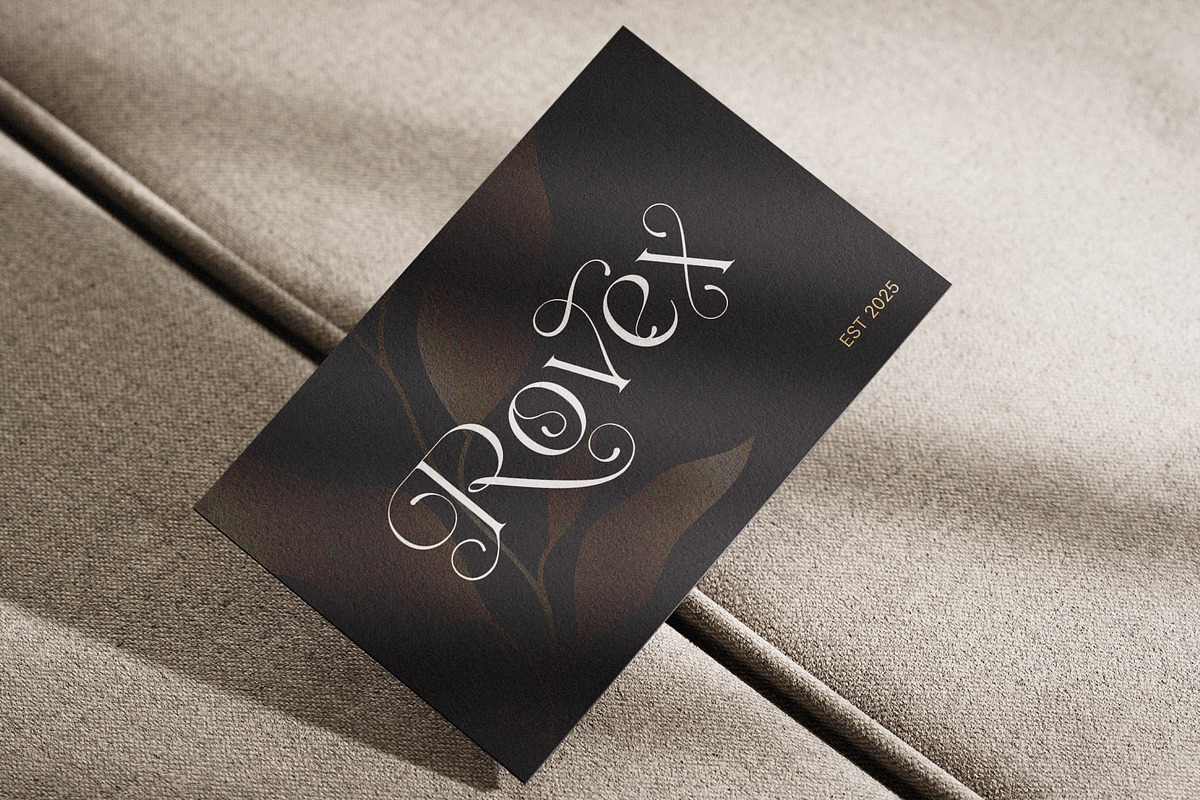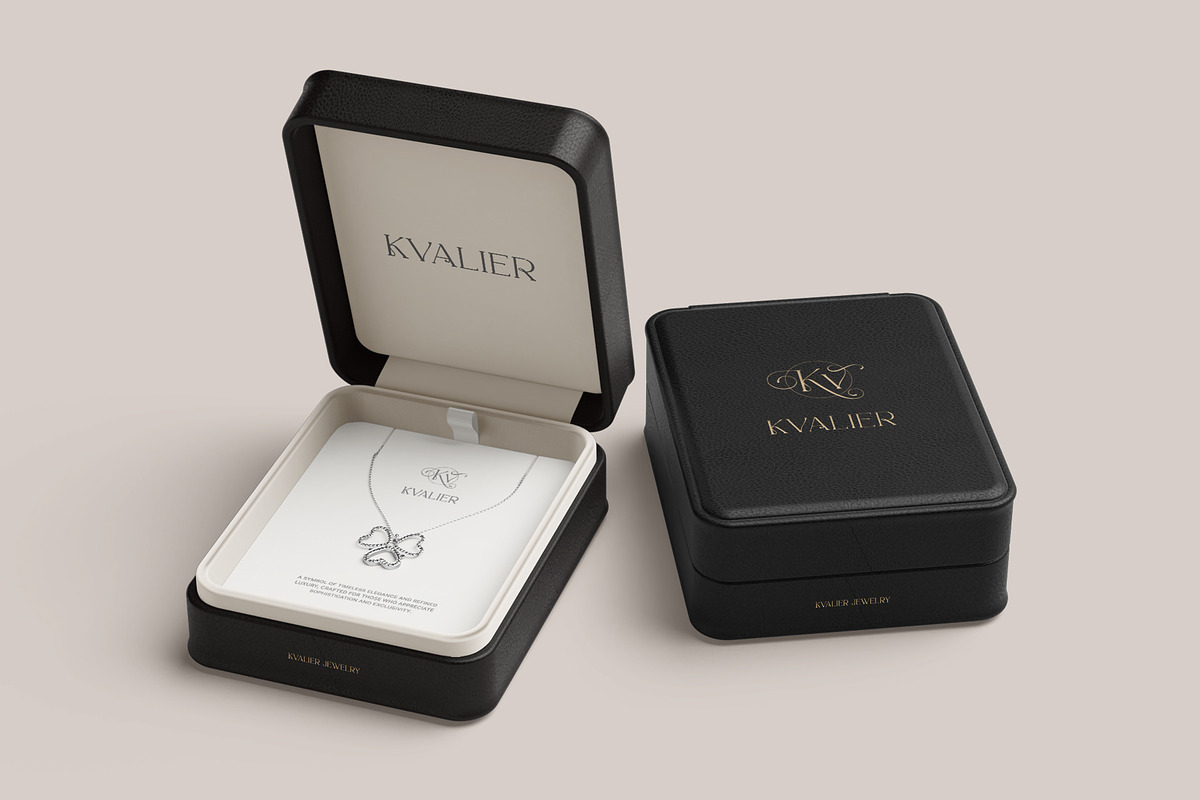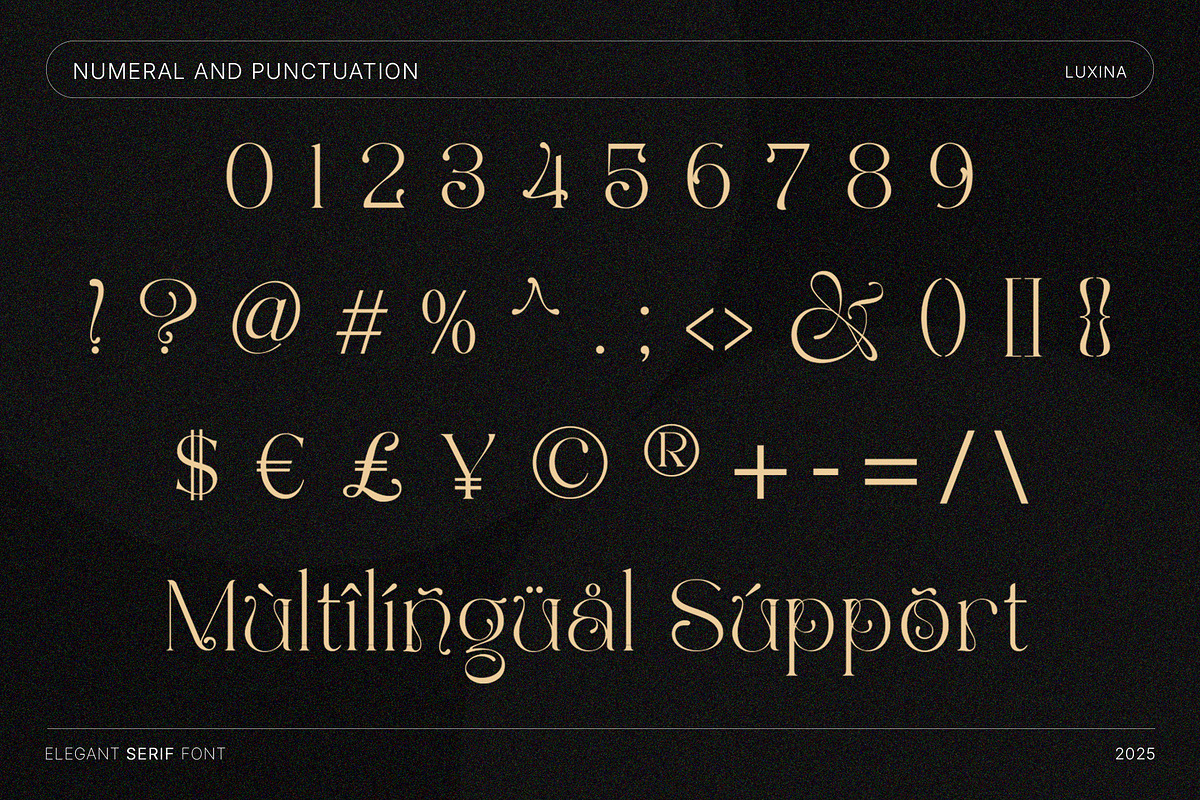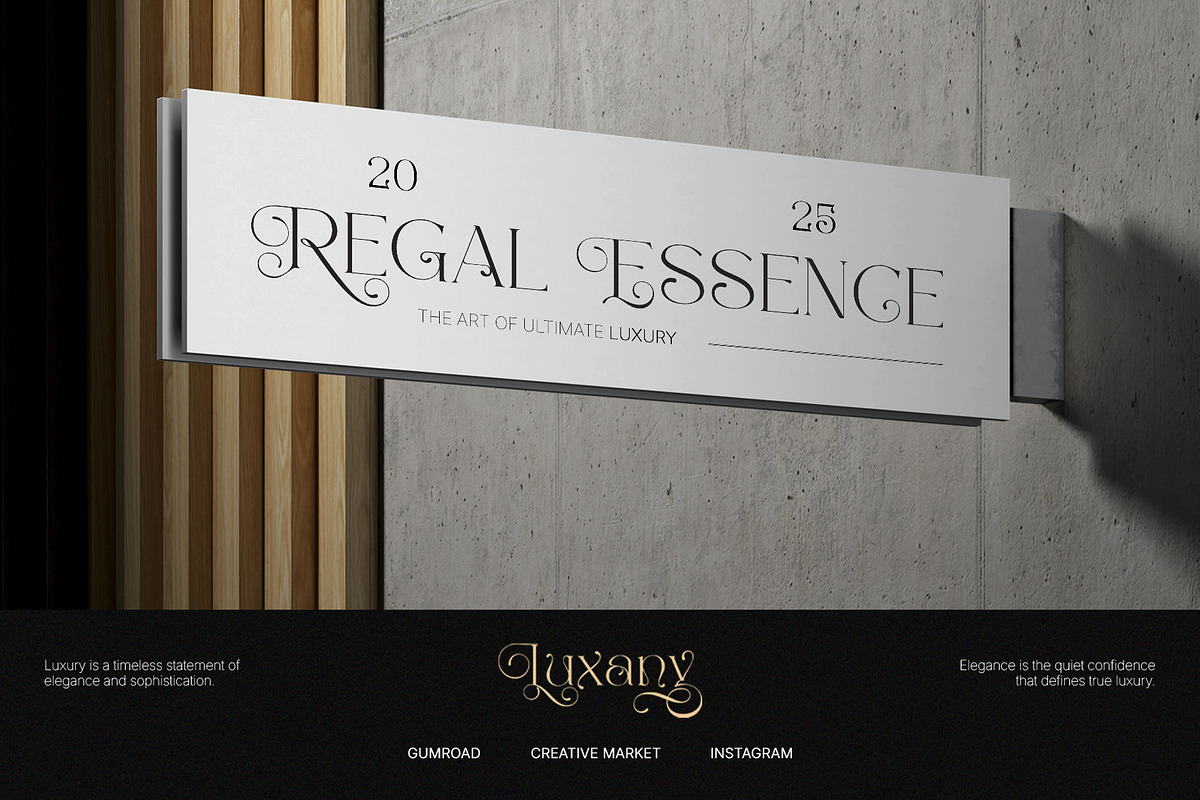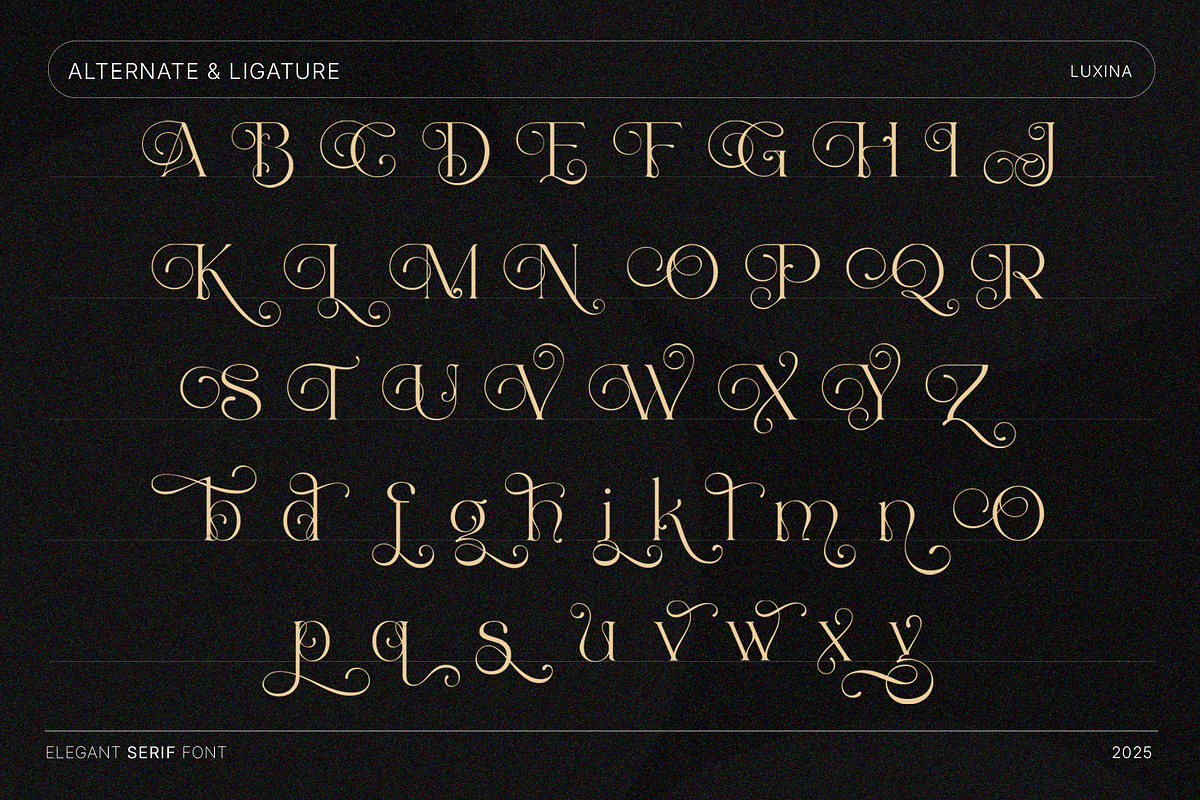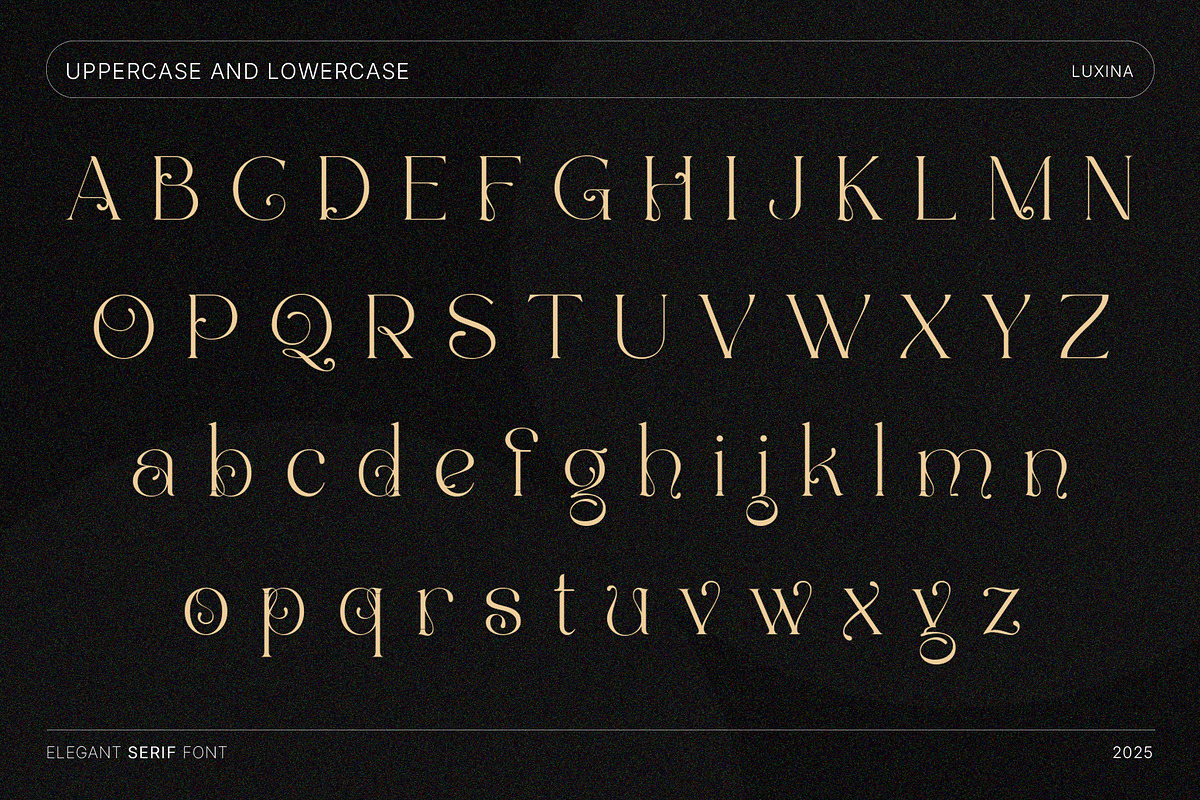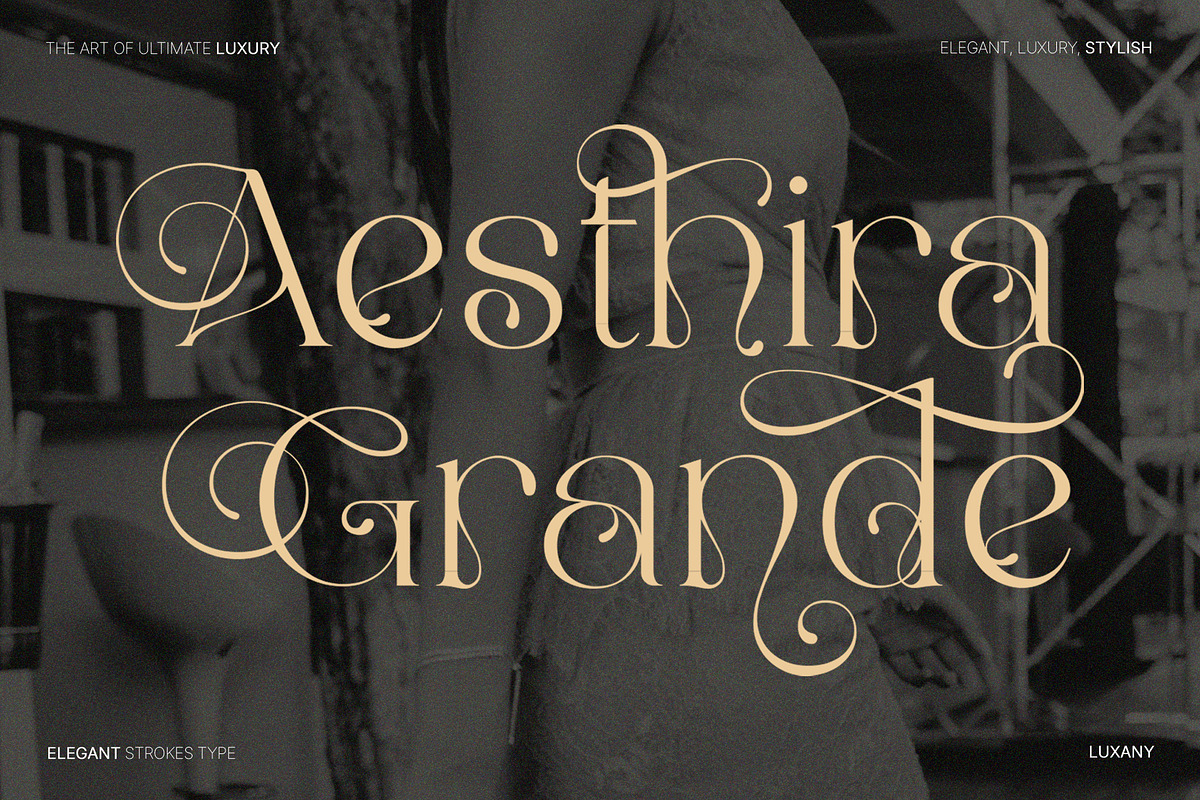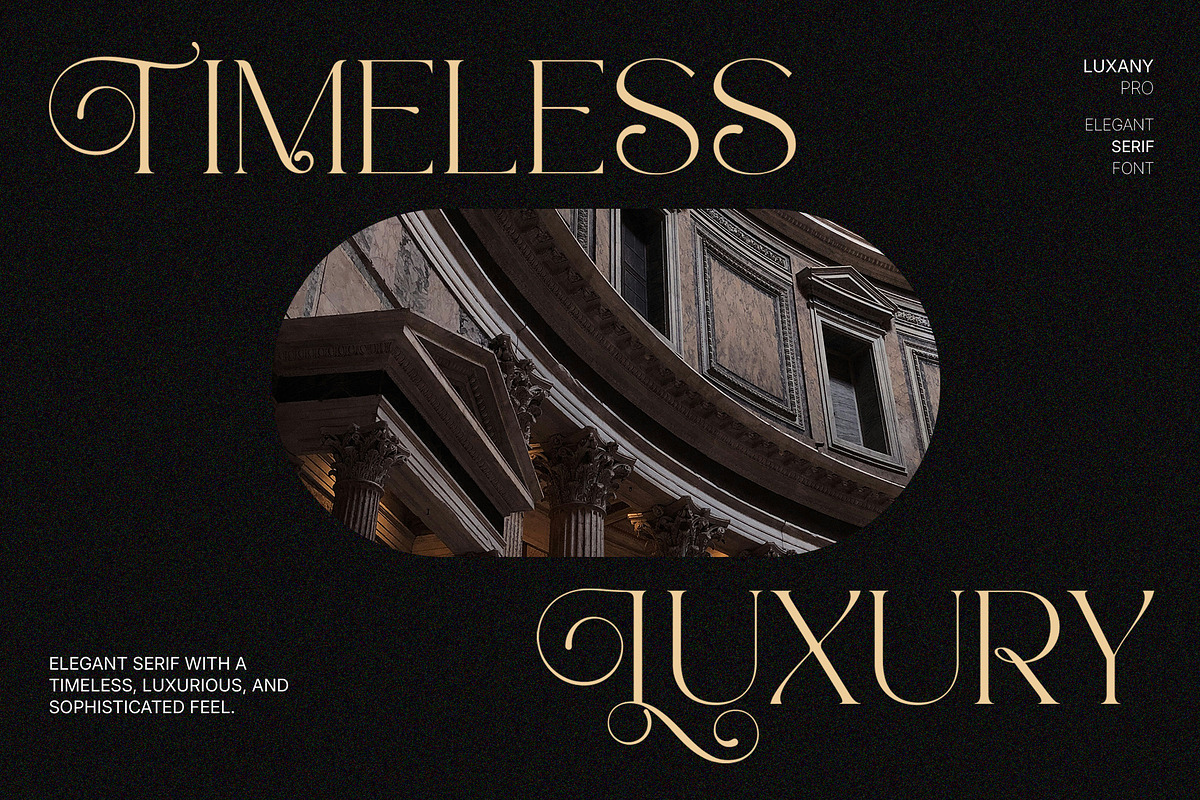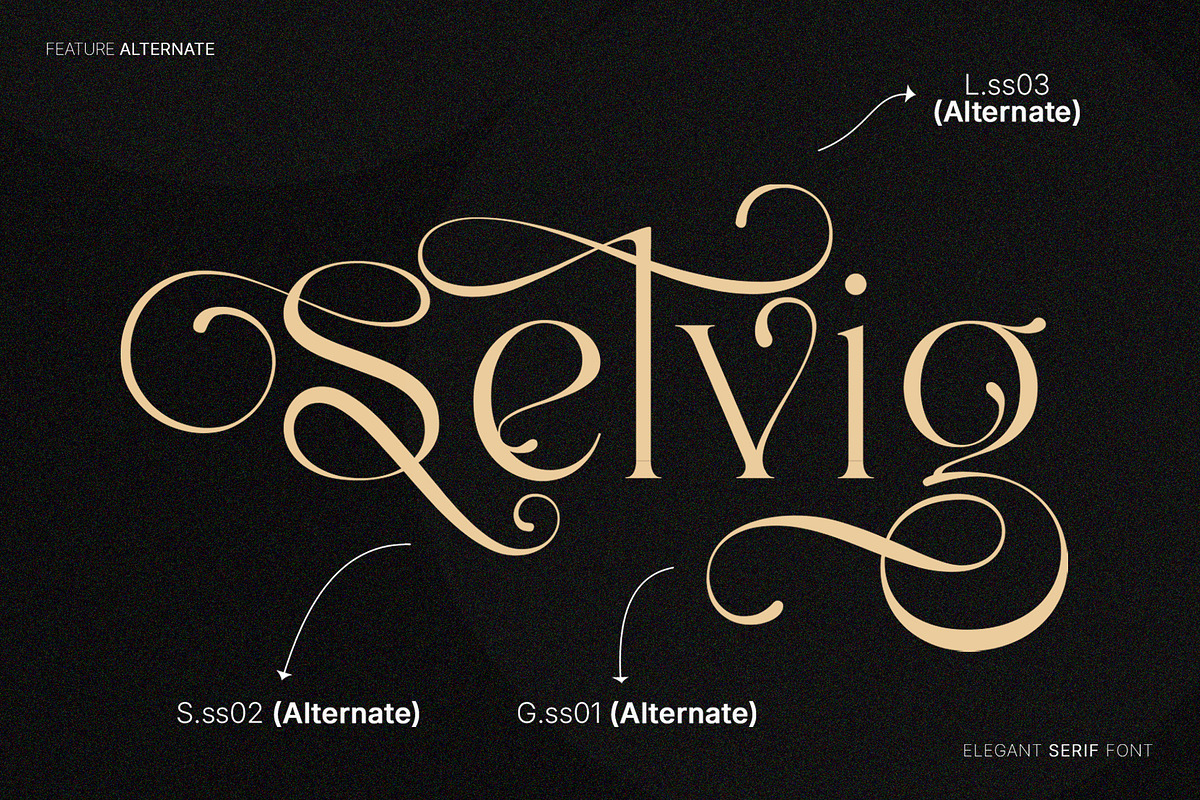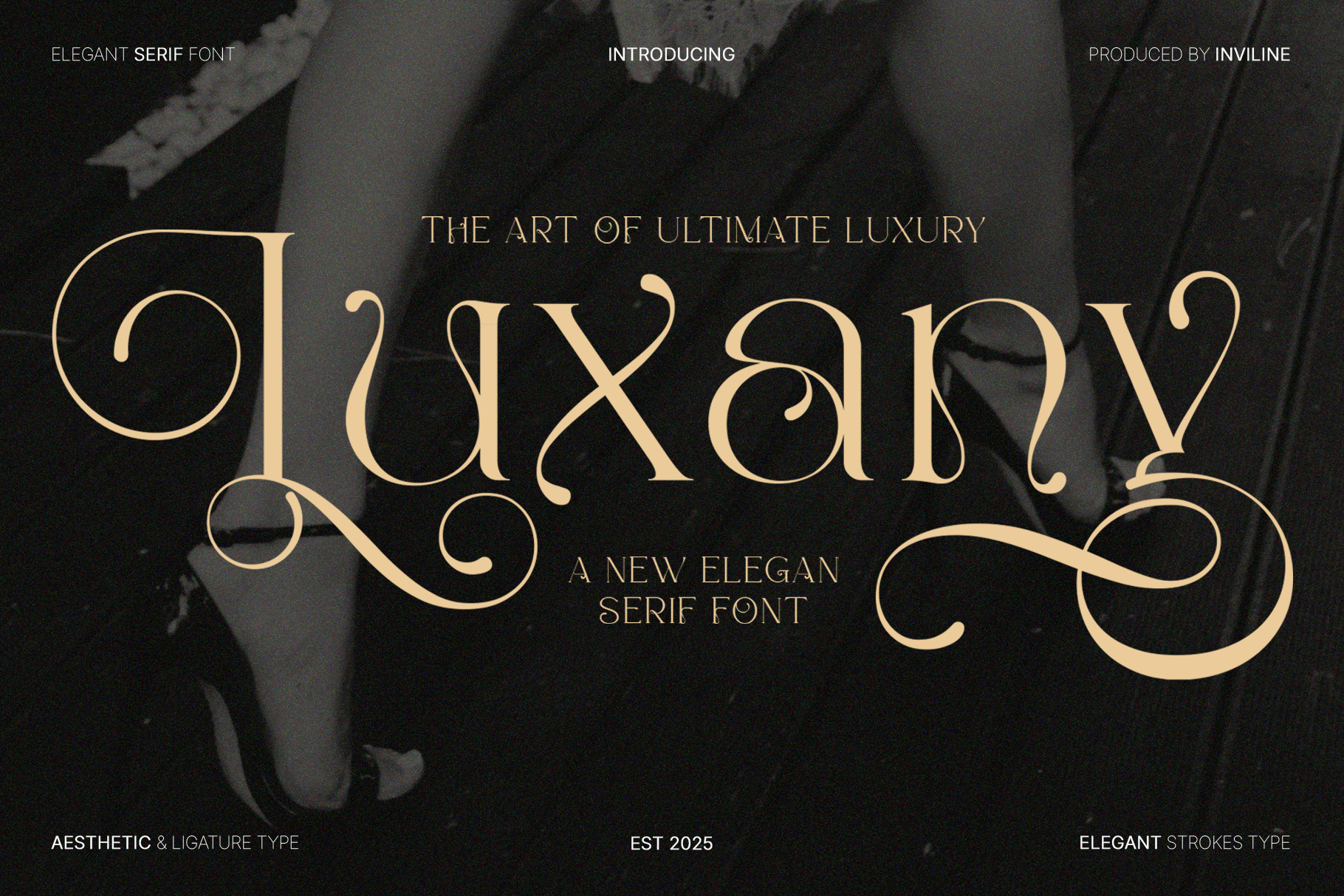
Luxany - Elegant Serif Font
Luxany is an elegant serif display typeface created with graceful curves, sophisticated proportions, and dramatic ornamental details. Its refined construction blends classic serif typography with expressive swashes, giving the font a luxurious and distinctive visual personality.
Inspired by high-end fashion, premium editorials, romantic stationery, and timeless luxury branding, Luxany is designed for projects that need an elegant, artistic, and memorable typographic presence.
Overview
Luxany combines high-contrast serif letterforms with elongated curves and decorative flourishes. Its standard characters provide a sophisticated foundation, while ornamental forms and ligatures allow designers to create more expressive headlines, logos, names, and editorial compositions.
The typeface works beautifully for fashion identities, beauty branding, wedding stationery, perfume packaging, luxury hospitality, magazine covers, and premium product design.
Use Luxany as a statement display font, then combine it with a clean sans serif or subtle serif typeface for descriptions, captions, and supporting information.
Elegant luxury serif design
Refined high-contrast letterforms
Graceful ornamental curves
Decorative beginning and ending swashes
Long flowing terminal strokes
Sophisticated editorial personality
Uppercase and lowercase alphabet
Complete numerals
Standard symbols and punctuation
Stylistic alternates and ligature features
Strong visual impact at medium and large sizes
Suitable for print and digital applications
Ideal for logos, titles, names, and short phrases
Works beautifully with fashion, beauty, wedding, and luxury imagery
Easy to pair with minimalist sans serif typography
Stylistic Alternates: decorative alternate forms are clearly part of the font system, but the exact supported characters are not fully identifiable from the supplied preview
18 Ligature Pairs: st, br, cr, ct, fr, ist, op, or, ox, th, Tr, tt, wn, ff, fi, fl, ffi, ft — only list the complete set if all pairs are included and tested in the final font file
Multilingual Support: Western European characters with diacritics (À, Á, Â, Ç, É, Ñ, Ø, Ü, etc.)
Ideal For / Use Cases
Luxury branding
Fashion branding
Beauty and cosmetic identities
Perfume packaging
Jewelry branding
Boutique logos
Wedding invitations
Save-the-date cards
Bridal stationery
Editorial headlines
Magazine covers
Fashion lookbooks
Premium product packaging
Product labels
Hotel branding
Restaurant branding
Personal branding
Photography portfolios
Website hero titles
Book covers
Greeting cards
Event invitations
Art direction projects
Sophisticated visual identities
Use Luxany at medium or large sizes to showcase its elegant proportions, decorative curves, and extended swashes. It works best for logos, names, headlines, packaging titles, invitations, and short display phrases rather than long body text.
Pair Luxany with a clean sans serif font for captions, descriptions, dates, and supporting information. Give decorative flourishes enough surrounding space to maintain a balanced composition.